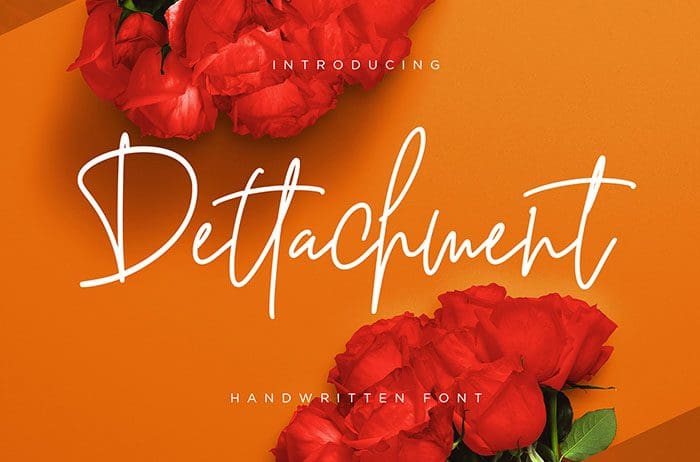
Dettachment Handwritten Font
Dettachment is a handwritten font with an elegant and classy style. Dettachment is perfect for branding projects, logo, wedding designs, and many more. Thanks to Creatype Studio for sharing this font! Take a look at this portfolio for more of his stunning fonts.